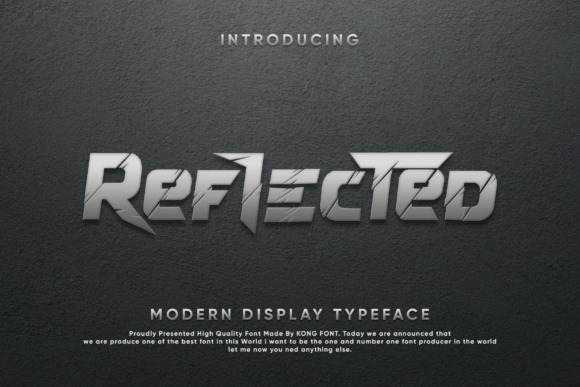
Step into the world of Reflected, a modern and playful display font that embodies the essence of creativity. Designed with the passion of crafters and designers in mind, Reflected is not just a font; it's an artistic expression waiting to be unleashed.
With its charming curves and captivating style, Reflected will infuse your designs with a touch of elegance and whimsy. Each letterform is meticulously crafted to exude a sense of joy and playfulness, making it the perfect choice for adding a personal touch to your projects.
Imagine the possibilities: create eye-catching logos that leave a lasting impression, design unique greeting cards that convey heartfelt messages, or transform your social media posts into visually stunning masterpieces. Reflected is the font that turns ordinary words into extraordinary expressions.
But Reflected is more than just a beautiful font; it's also incredibly versatile. Its playful nature lends itself perfectly to children's books, evoking a sense of wonder and imagination with every turn of the page. Unleash your creativity and craft enchanting invitations, vibrant posters, and eye-catching packaging designs that will leave your audience spellbound.